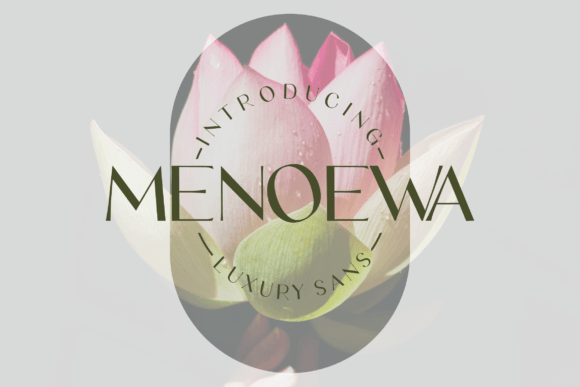
Menoewa Font: A Journey Through Minimalist Elegance
Welcome to the realm of Menoewa, a stunning sans serif font that captivates with its striking simplicity and refined sophistication. Created by zerologicstudio, this font is an ode to modern aesthetics, combining clean, geometric lines that evoke a sense of order and harmony.
Menoewa's balanced letterforms and consistent stroke weight bestow a timeless elegance upon your designs, making it the perfect choice for projects seeking a contemporary and minimalist touch. Its versatility knows no bounds, whether you're crafting logos, advertisements, or editorial pieces that demand an air of refined professionalism.
With Menoewa as your creative companion, you can:
• Forge a Bold Brand Identity: Menoewa's distinct character lends itself effortlessly to branding endeavors. Its clean lines and minimalist aesthetic serve as a solid foundation for creating logos that exude sophistication and leave a lasting impression.
• Craft Compelling Advertisements: Menoewa's ability to command attention makes it ideal for advertising campaigns. Its geometric precision conveys a sense of trust and reliability, while its modern flair captivates audiences and compels them to engage with your message.
• Embark on Editorial Adventures: Menoewa's elegant simplicity shines in editorial design. Its balanced letterforms and consistent stroke weight ensure readability and clarity, making it a joy to read even in dense text passages. Whether you're crafting articles, reports, or captivating stories, Menoewa elevates your words and draws readers into your narrative.
• Experience Cross-Cultural Appeal: Menoewa's design sensibilities transcend cultural boundaries, making it the perfect choice for projects targeting Vietnamese audiences. Its clean lines and minimalist aesthetic resonate with the Vietnamese appreciation for simplicity and elegance.
Menoewa is more than just a font; it's an invitation to explore a world of sophisticated design possibilities. Its versatility, cross-cultural appeal, and unwavering commitment to minimalist elegance make it an invaluable asset for designers seeking to make a lasting impact.